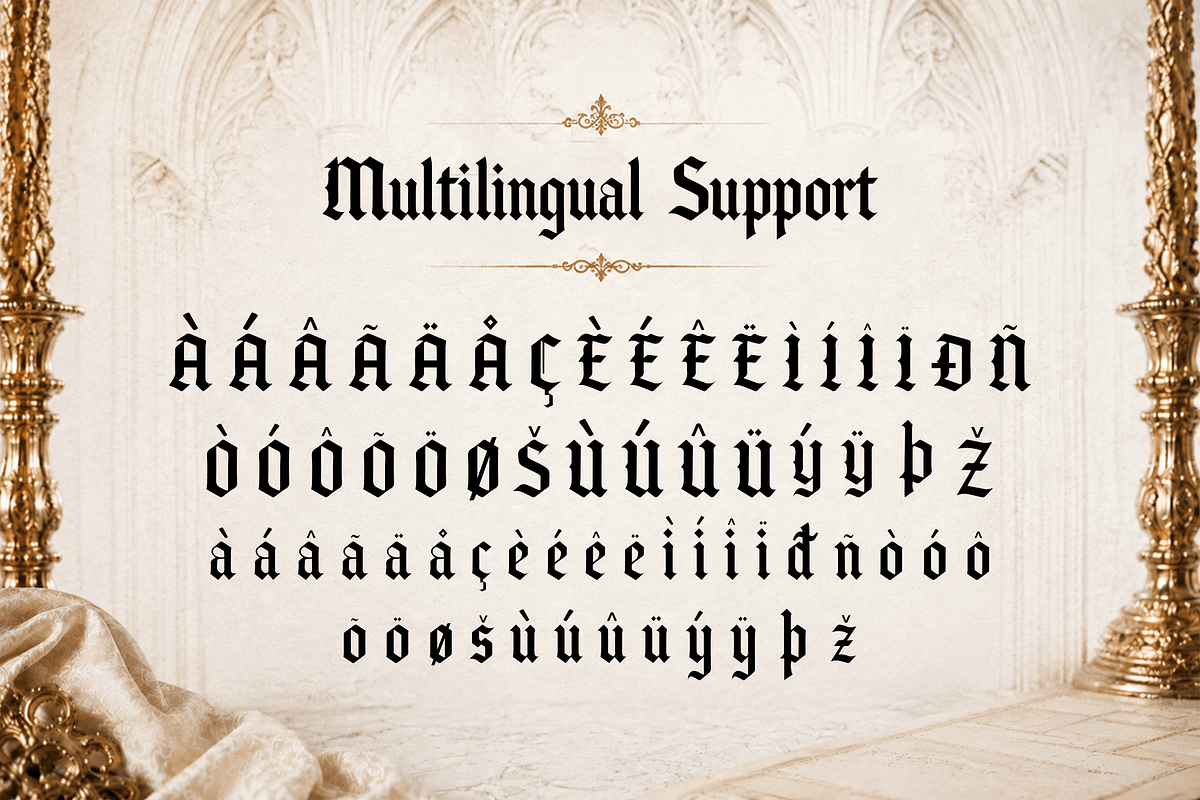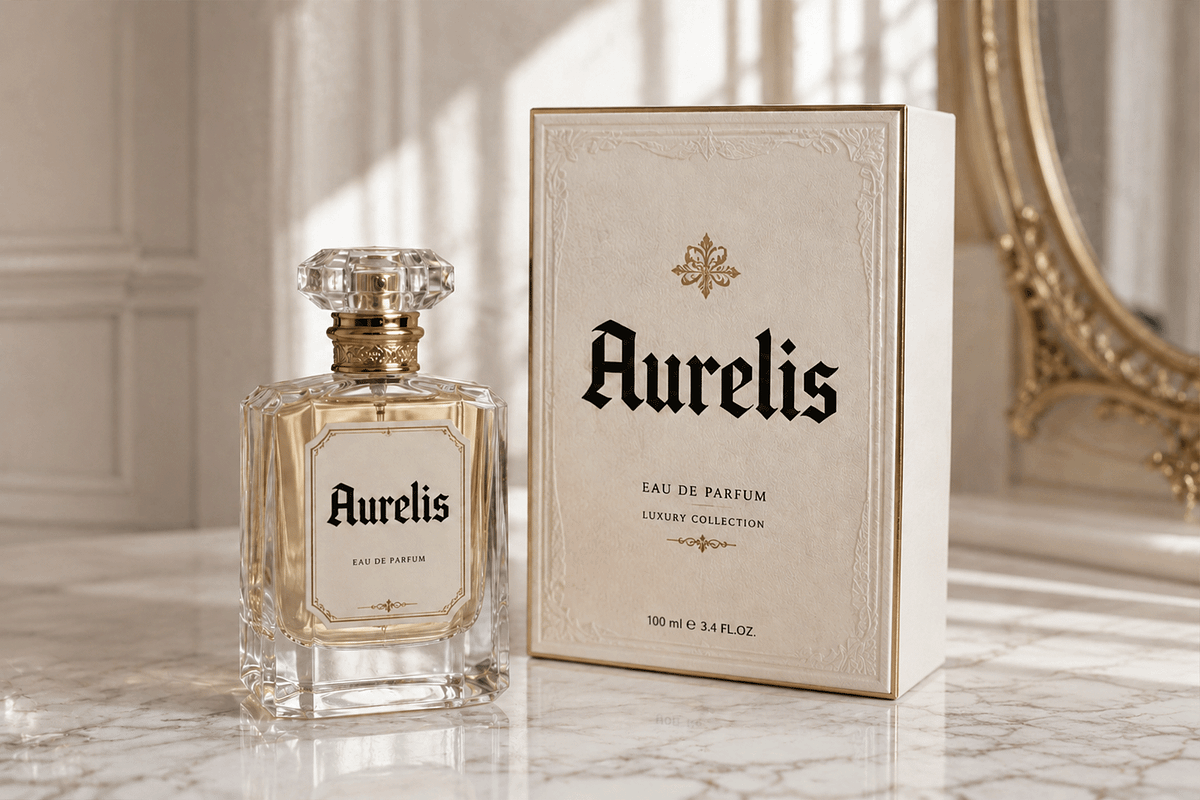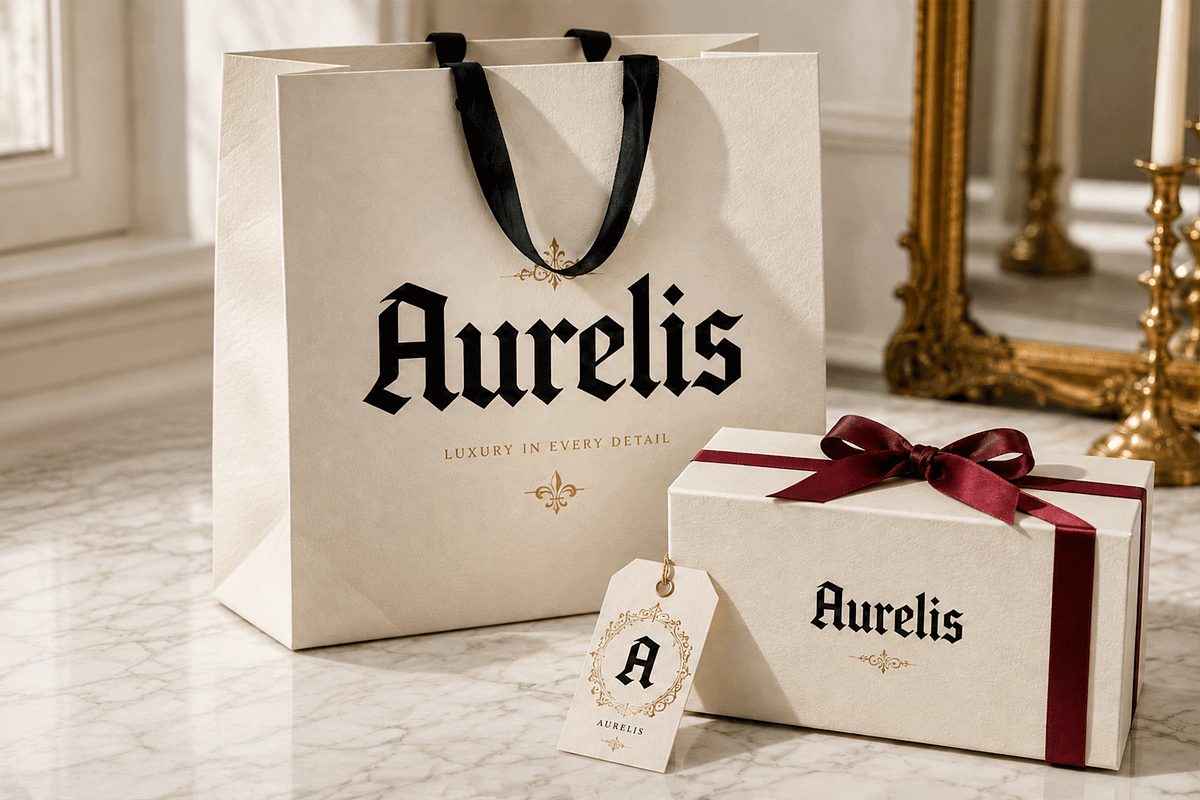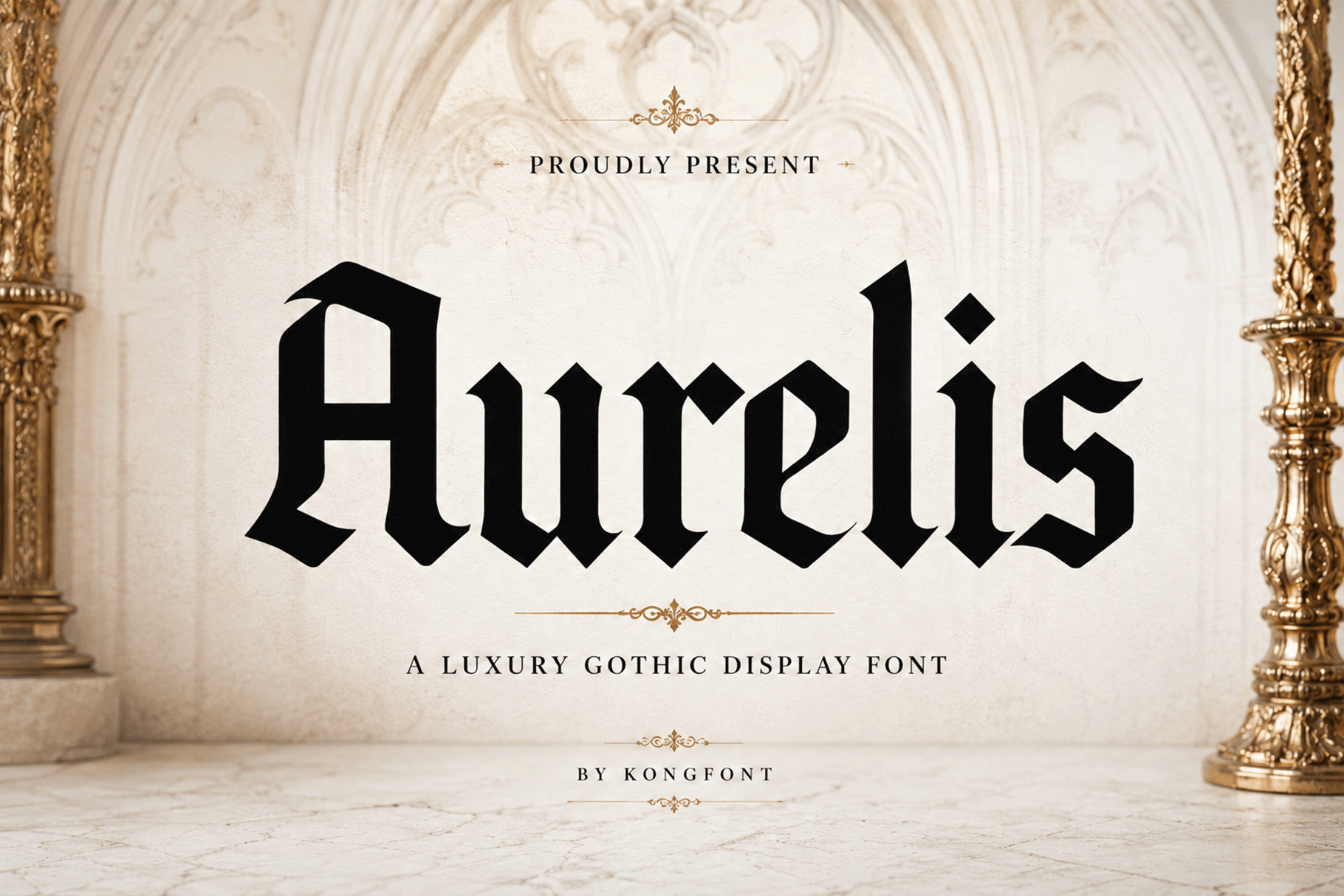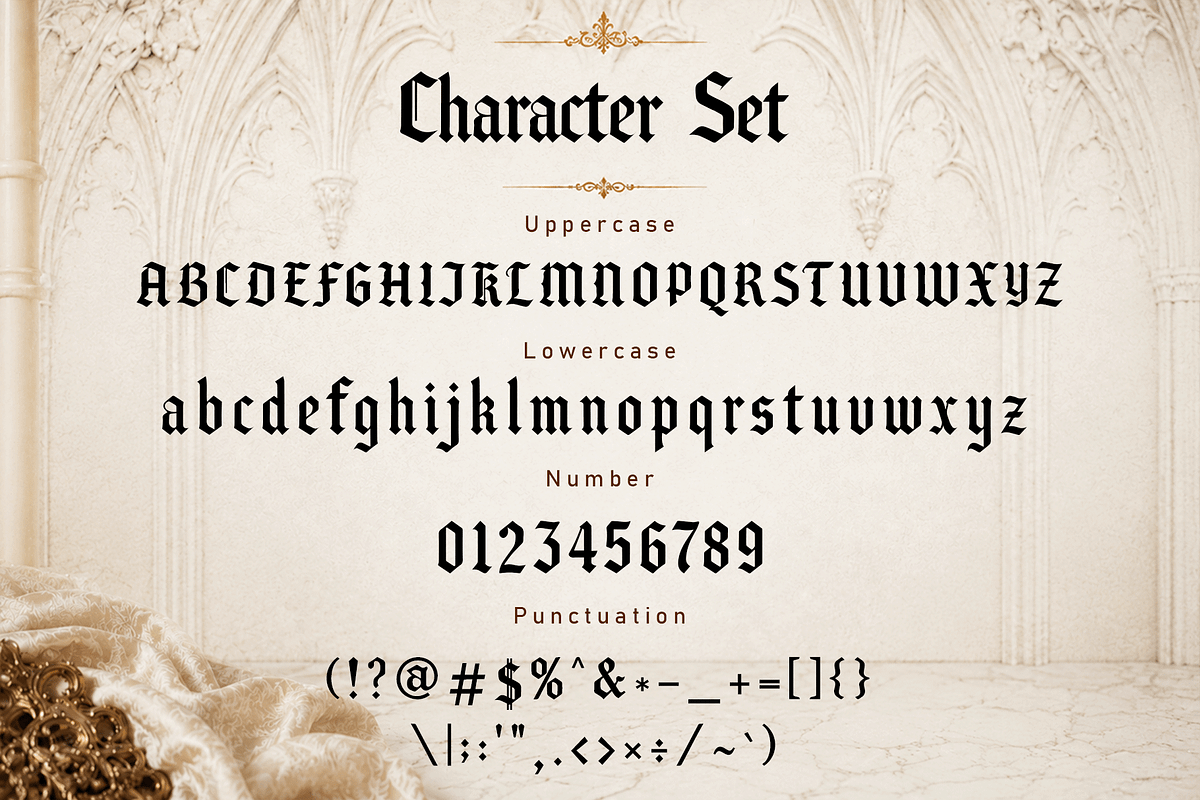
Aurelis - Luxury Gothic Display Font
Meet "Aurelis," a luxury gothic display font crafted with bold blackletter-inspired forms, sharp details, and a refined high end personality. Its dramatic letterforms combine medieval character with a polished modern finish, creating typography that feels powerful, elegant, and visually distinctive.
Aurelis works beautifully for luxury brands, gothic fashion, fragrance packaging, jewelry identities, premium hospitality, medieval-inspired projects, album covers, dark editorial design, and elegant event graphics. Pair it with a clean serif or minimalist sans serif to create a refined contrast between classic gothic influence and contemporary design.